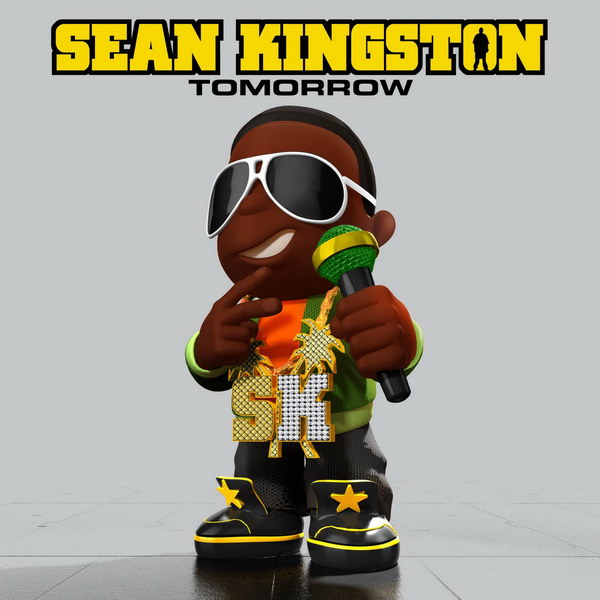
Tomorrow Font
Fonts in UseTomorrow is the third studio album by Jamaican-American singer Sean Kingston, released on September 22, 2009. It features collaborations with prominent artists such as Wyclef Jean, Soulja Boy, and Akon.
It is likely that Eurostile Bold Extended #2 was used for the album title and City Pro Bold by Georg Trump was modified for the singer's name, specifically the letter "N". Both fonts are commercial and can be viewed here and here respectively.